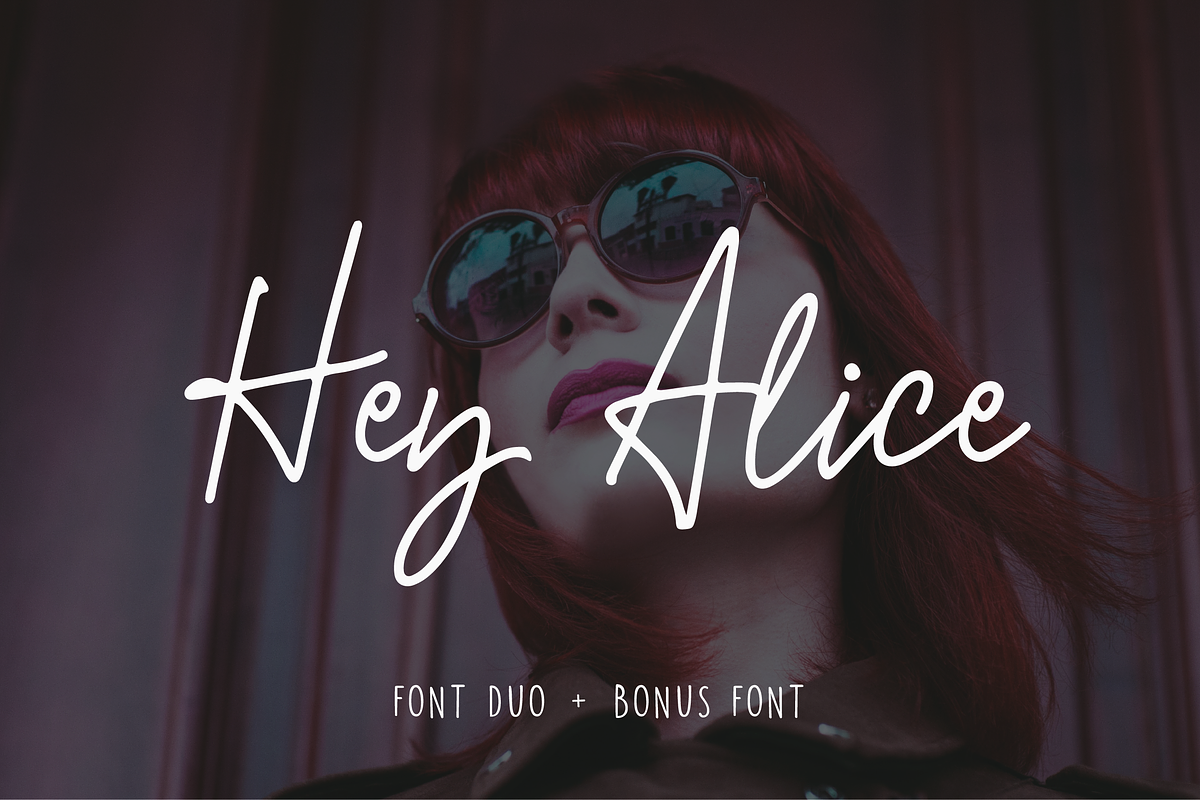
This charming collection is perfect for children's book illustrations, playful brand identities, whimsical wedding invitations, boutique packaging design, creative workshop materials, fairy tale storytelling, wonderland-themed events, and imaginative social media graphics. Its delightful character makes it ideal for projects requiring curiosity, adventure, and magical storytelling aesthetics.
Hey Alice Font Duo is exciting because it captures the spirit of wonder and adventure with two complementary typefaces that work together to create enchanting visual narratives reminiscent of classic storybook adventures. The duo features contrasting yet harmonious styles that allow designers to create dynamic layouts with perfect typographic balance. Its whimsical personality evokes the curiosity and imagination of beloved literary adventures while maintaining professional functionality.
The Hey Alice Font Duo family includes two distinct but coordinated fonts with varying weights and stylistic options, along with decorative elements and whimsical ornaments. Many versions feature alternate characters, playful ligatures, and special symbols that enhance the storytelling potential and creative versatility.
Whether you're creating children's entertainment content, imaginative brand campaigns, or whimsical design projects, Hey Alice Font Duo Free Download provides enchanting creativity with professional reliability. This collection transforms ordinary communications into magical experiences that resonate with audiences who appreciate storytelling, imagination, and the timeless appeal of adventure. Its distinctive character adds immediate charm and wonder to any project while celebrating the power of Hey Alice Font Duo Free Download and the endless possibilities that emerge when curiosity meets creative expression.